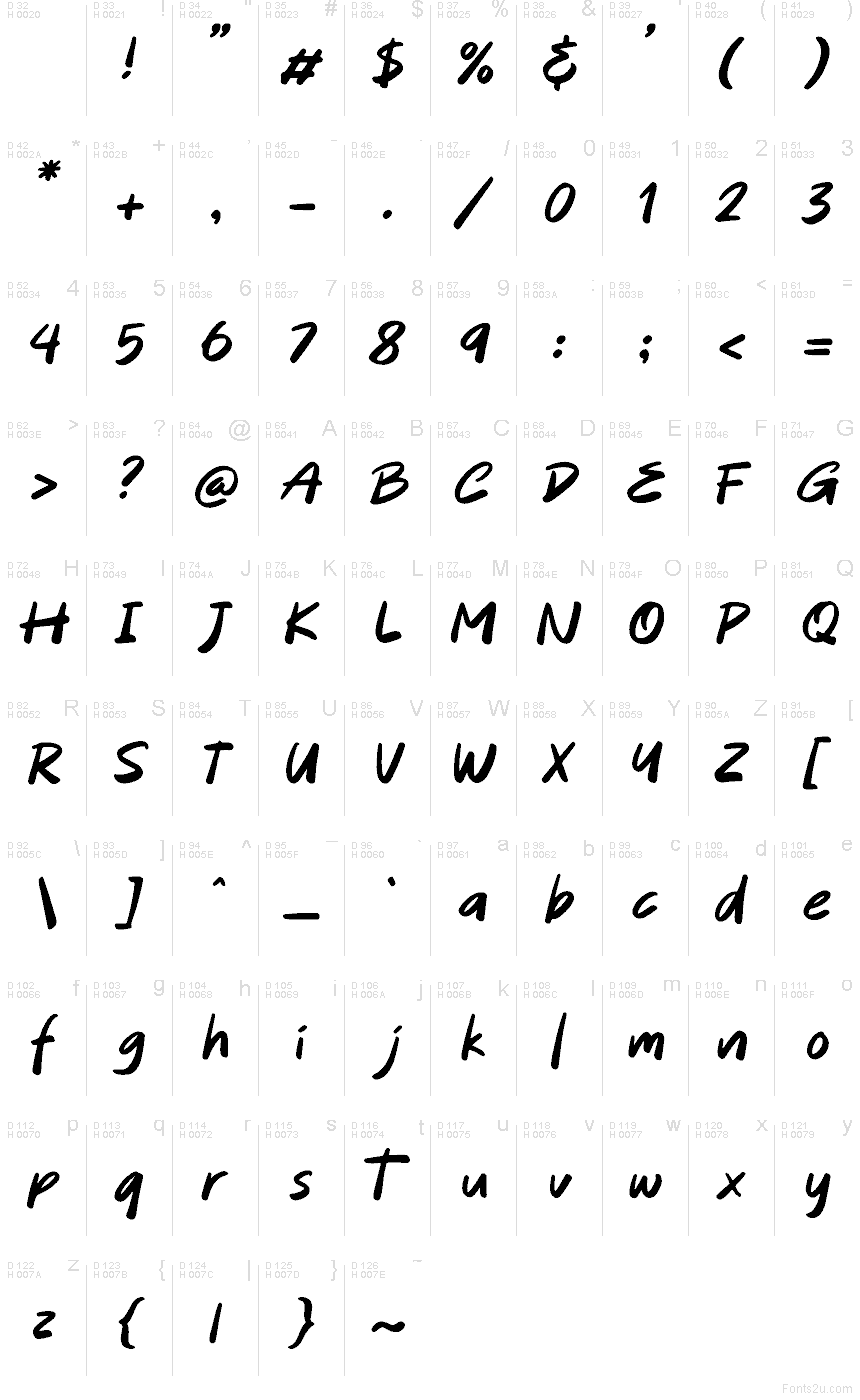
Quintero Italic
Quintero Italic font by Gracetype Studio is a free brush script typeface that hits the sweet spot between handwritten warmth and everyday readability. Its inky, slightly slanted strokes feel like a confident marker line—bold, rounded, and smooth—so your text stays friendly without turning messy or fussy. The rhythm is relaxed but consistent, giving headings and short phrases an easygoing, human touch that still reads clearly at a glance.
Using Quintero Italic, this free font shines on logos, product packaging, quote graphics, social posts, casual invitations, event signage, and branded merch. The letters connect with an unforced flow, creating a cohesive word shape that pulls the eye across a layout. For a clean, modern combo, pair Quintero from the Quintero family with a simple geometric sans in smaller text, letting the brush script carry the personality while the sans keeps information crisp and organized.